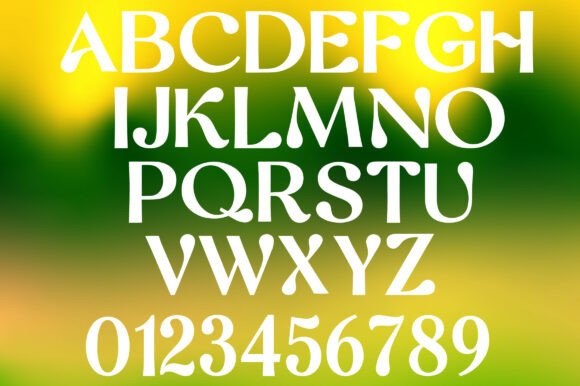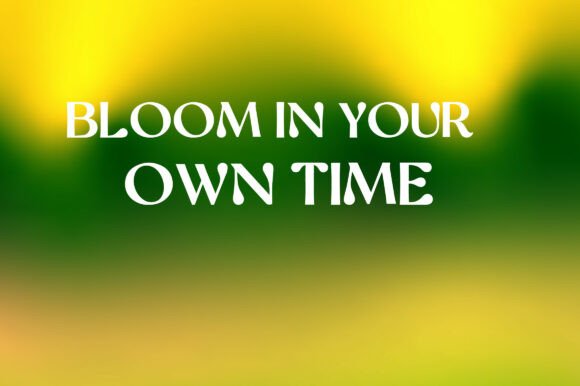
Introducing Glow with Joy Font: Elevate Your Design with Elegance and Sophistication
In the world of typography, fonts play a crucial role in conveying the tone and personality of a brand or design. For those seeking a typeface that exudes luxury, elegance, and a touch of modernity, Glow with Joy Font is an exceptional choice. This high-contrast serif font strikes a perfect balance between classic sophistication and contemporary flair, making it an ideal selection for various design applications.
Characteristics of Glow with Joy Font
Glow with Joy Font is distinguished by its fluid swells and elegant, teardrop-shaped terminals. These distinctive features give the font its unique charm and a sense of dynamism, evoking the feeling of light and expansion. The high contrast between thick and thin strokes adds a level of refinement and poise, setting it apart from more traditional serif fonts.
Ideal Use Cases for Glow with Joy Font
Due to its luxurious and inspirational aesthetic, Glow with Joy Font is particularly well-suited for specific design projects. Some of the ideal use cases include:
- High-end skincare branding: The font’s elegant and sophisticated appearance makes it a perfect match for luxury skincare brands looking to convey a sense of high-quality and refinement.
- Retreat posters: The font’s inspirational and uplifting feel makes it an excellent choice for retreat posters, helping to create a sense of tranquility and escape.
- “Daily Affirmation” cards: The font’s positive and uplifting vibe makes it an ideal selection for daily affirmation cards, helping to inspire and motivate individuals.
- Inspirational editorial headers: The font’s classic yet contemporary feel makes it a great choice for editorial headers, adding a touch of sophistication and elegance to any publication.
- Sophisticated event stationery: The font’s luxurious appearance makes it perfect for event stationery, such as wedding invitations, gala programs, and other high-end events.
Why Choose Glow with Joy Font?
There are several reasons why designers and crafters might choose Glow with Joy Font for their projects:
- Unique aesthetic: The font’s distinctive fluid swells and teardrop-shaped terminals give it a unique and eye-catching appearance.
- Versatility: Despite its luxurious feel, Glow with Joy Font is versatile enough to be used in a variety of design applications, from editorial headers to event stationery.
- Emotional resonance: The font’s inspirational and uplifting vibe makes it an excellent choice for designs intended to motivate and inspire.
Tips for Using Glow with Joy Font
To get the most out of Glow with Joy Font, consider the following tips:
- Use it sparingly: Due to its luxurious and attention-grabbing appearance, it’s best to use Glow with Joy Font sparingly to avoid overwhelming the design.
- Pair it with complementary fonts: Glow with Joy Font pairs well with simpler, sans-serif fonts that can help to balance out its ornate appearance.
- Experiment with colors: The font’s elegant appearance works well with a range of colors, from rich jewel tones to soft pastels.
Glow with Joy Font is a sophisticated and elegant typeface that offers a unique blend of classic and contemporary flair. Its luxurious appearance, inspirational vibe, and versatility make it an excellent choice for a range of design applications, from high-end skincare branding to inspirational editorial headers. By incorporating Glow with Joy Font into your design projects, you can add a touch of refinement, poise, and sophistication that is sure to leave a lasting impression.